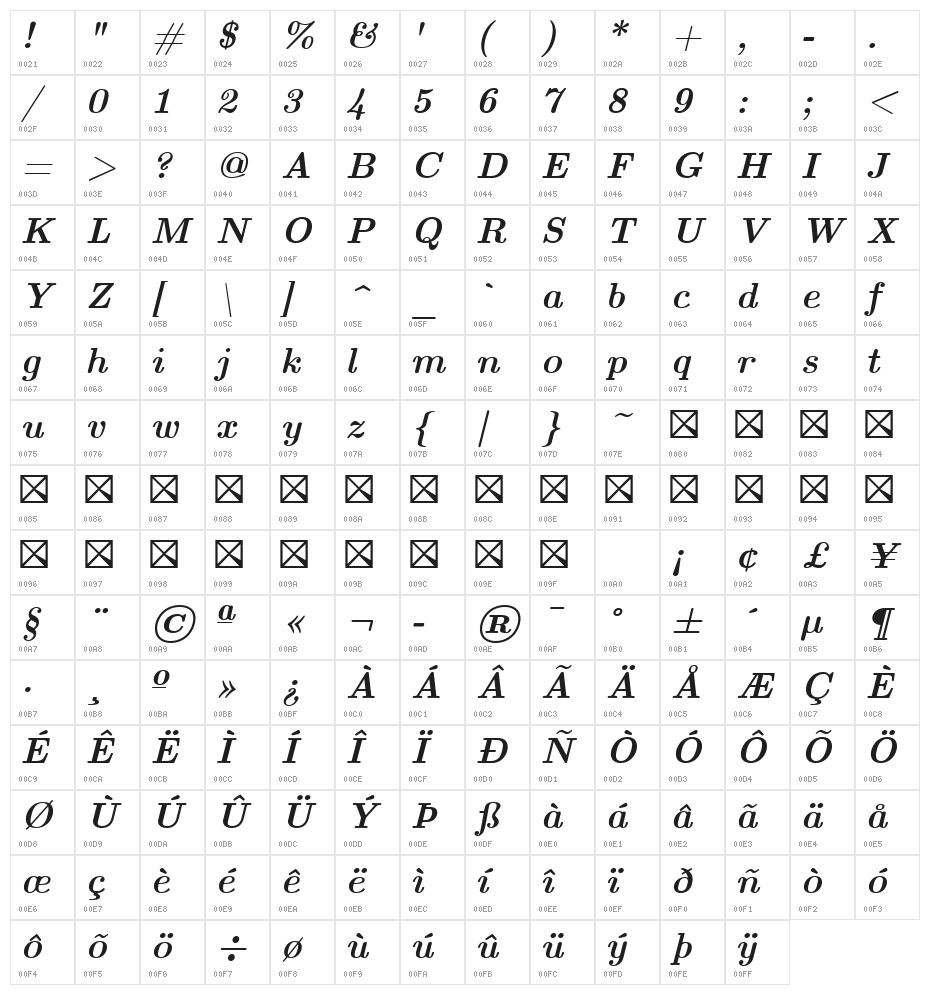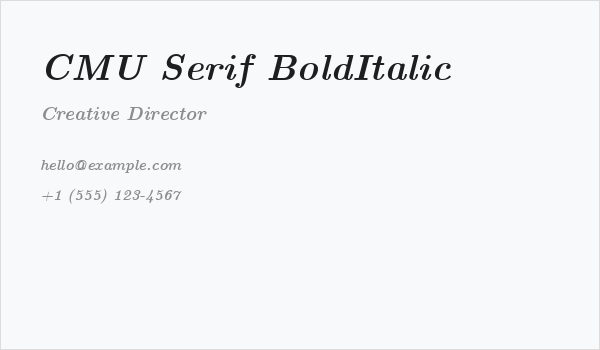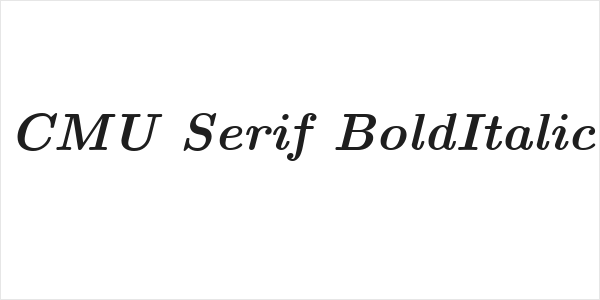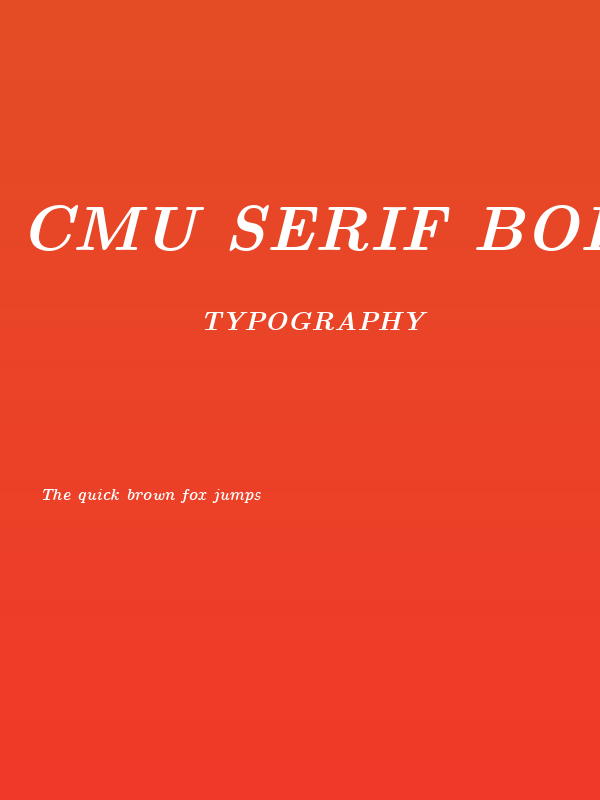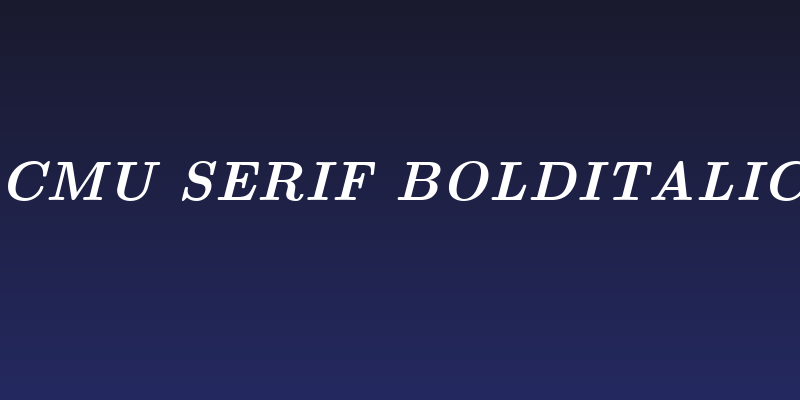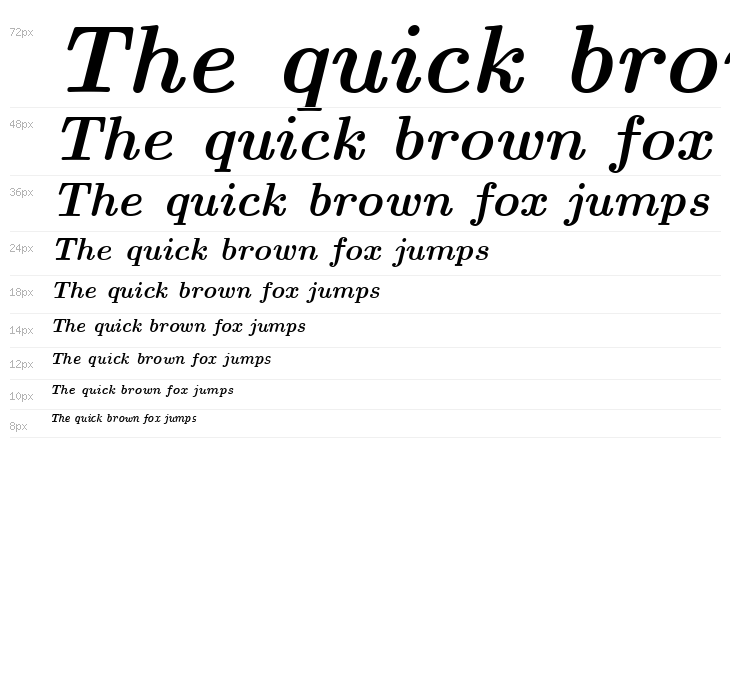
CMU Serif BoldItalic Font
CMU Serif BoldItalic Description
This font features a classic serif design with a bold and italicized style, giving it a strong and elegant appearance. The serifs are pronounced, adding a touch of sophistication and readability. The italic angle is moderate, providing a sense of movement and dynamism. The characters are well-proportioned, with a consistent stroke width that enhances legibility. The numerals are distinct and clear, making them suitable for both text and display purposes. Special characters are elegantly integrated, maintaining the overall aesthetic of the font.